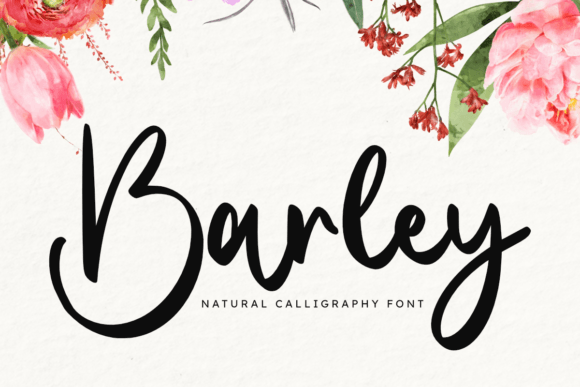
The Art of Handwritten Elegance: Discover the Barley Font
As you sit down to design a special project, the blank page stares back at you, waiting for the perfect words to come to life. Perhaps you’re crafting a wedding invitation, creating a logo for your new business, or designing a unique gift for a loved one. Whatever the occasion, the right font can make all the difference.
Enter the Barley Font, a beautiful blend of natural calligraphy and modern charm that adds a touch of sophistication to any design. Its smooth, flowing lines are perfect for those who want to convey a sense of refinement and approachability. Whether you’re a seasoned designer or a creative enthusiast, the Barley Font is an invaluable tool to have in your arsenal, offering endless possibilities for branding, logos, and elegant invitations.
- Unique Characteristics: The Barley font features a unique, hand-drawn style with subtle imperfections, giving it a natural and organic feel.
Barley Font Review
Overall, I found Barley Font to be a beautiful, elegant script font. It’s perfect for designs that require a touch of sophistication and whimsy. ✨ The flowing lines and delicate curves make it ideal for watercolor-inspired designs, invitations, and even book covers.
- The font’s versatility allows it to work well in both digital and print designs.
- It’s available in a range of weights, from light to bold, making it suitable for a variety of applications.
- The font’s unique character set includes a range of swashes and flourishes, adding an extra layer of personality to your designs.
However, there are some limitations to consider: ⚠️ The font may be difficult to read in small sizes, particularly in digital applications. Additionally, the font’s elegance can sometimes make it feel overly formal or even pretentious, so it’s essential to use it judiciously.
Overall, I’m impressed with Barley Font, and I think it’s a valuable addition to any designer’s toolkit. With its unique charm and versatility, it’s sure to add a touch of magic to your designs.
Barley Font is commonly used for:
- Rustic wedding invitations
- Vintage-inspired posters
- Custom illustrations
- Wedding stationery
Tips for Getting the Most Out of Barley Font
Here are some tips to get the most out of Barley Font:
- Pair Barley Font with distressed textures for a vintage look
- Use Barley Font in combination with other rustic fonts for a unique look
- Experiment with different font sizes and styles to create a visually appealing design
Alternatives to Barley Font
Playfair Display is an elegant, high-end serif font ideal for luxury branding, magazine headlines, and invitations. Its refined details and classic feel make it a great alternative to Barley Font’s rustic, vintage charm. Use Playfair Display when you need a sophisticated, high-end look that exudes luxury and refinement.
Great Vibes is a modern, elegant script font perfect for creative projects, branding, and marketing materials. Its flowing lines and subtle flair make it a great alternative to Barley Font’s more rustic feel. Use Great Vibes when you need a sophisticated, yet approachable font that adds a touch of personality to your design.
Pacifico is a beautiful, elegant script font inspired by the Pacific coast. Its flowing lines and subtle flair make it a great alternative to Barley Font’s more rustic feel. Use Pacifico when you need a font that evokes a sense of relaxation and tranquility, perfect for travel or wellness branding.